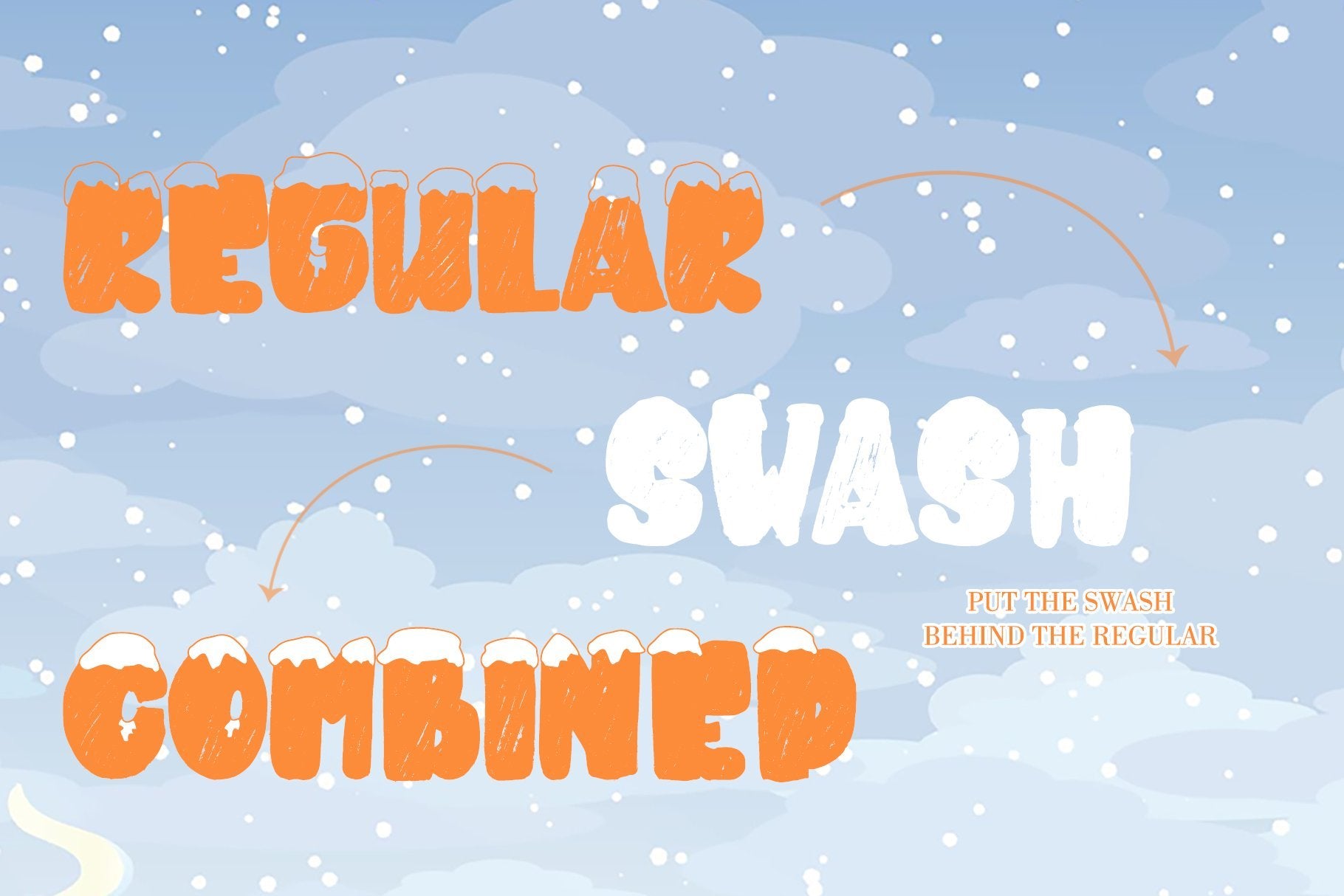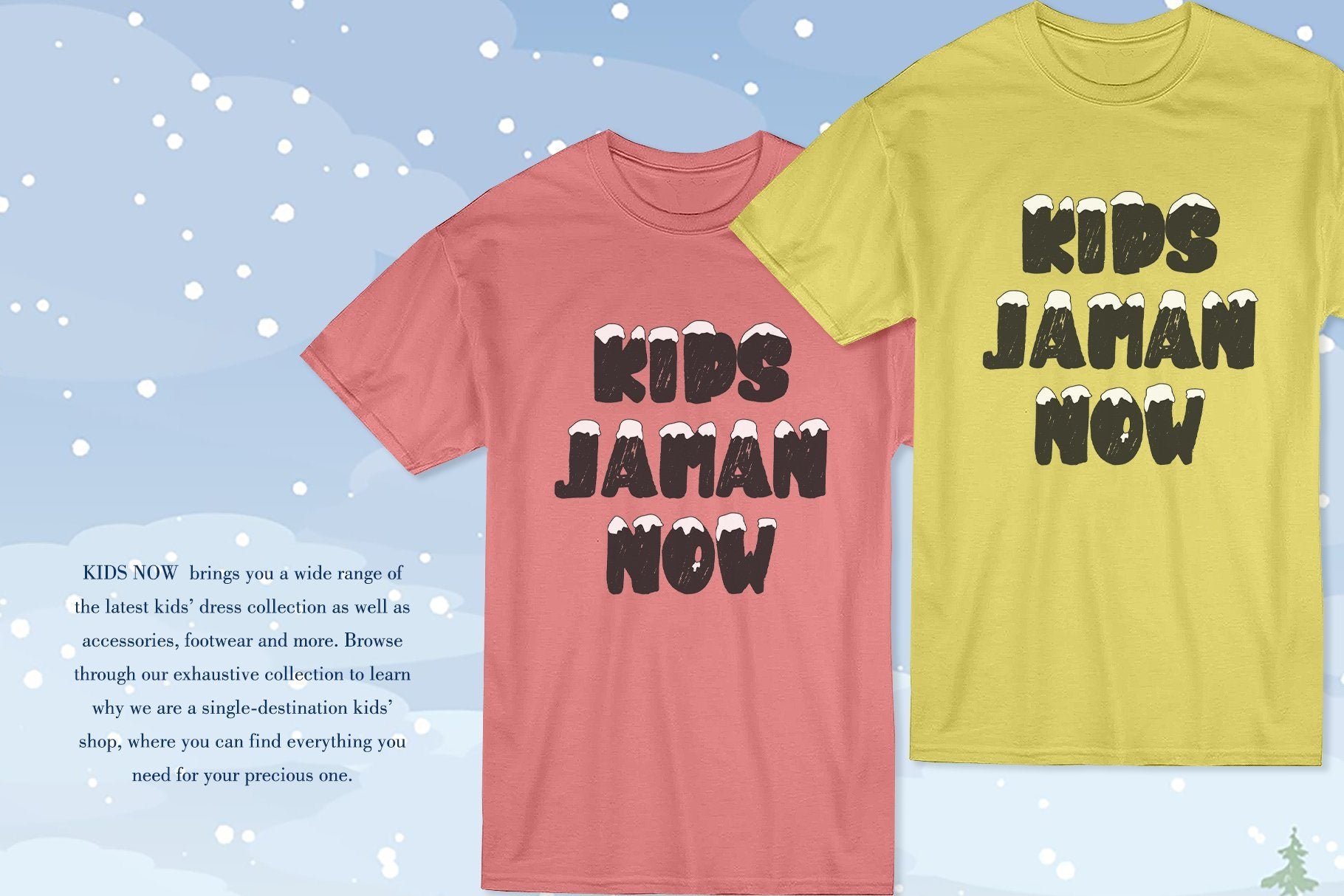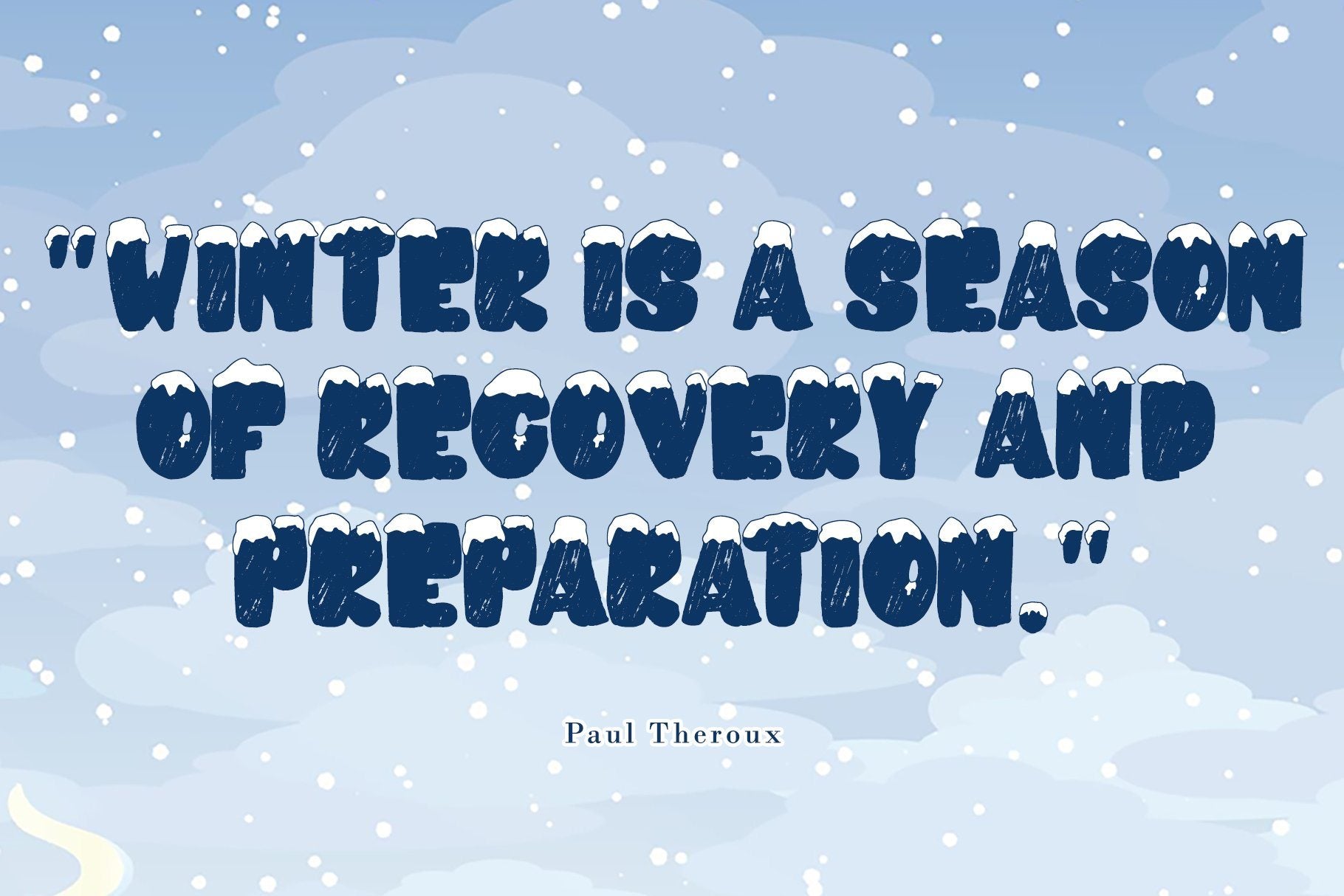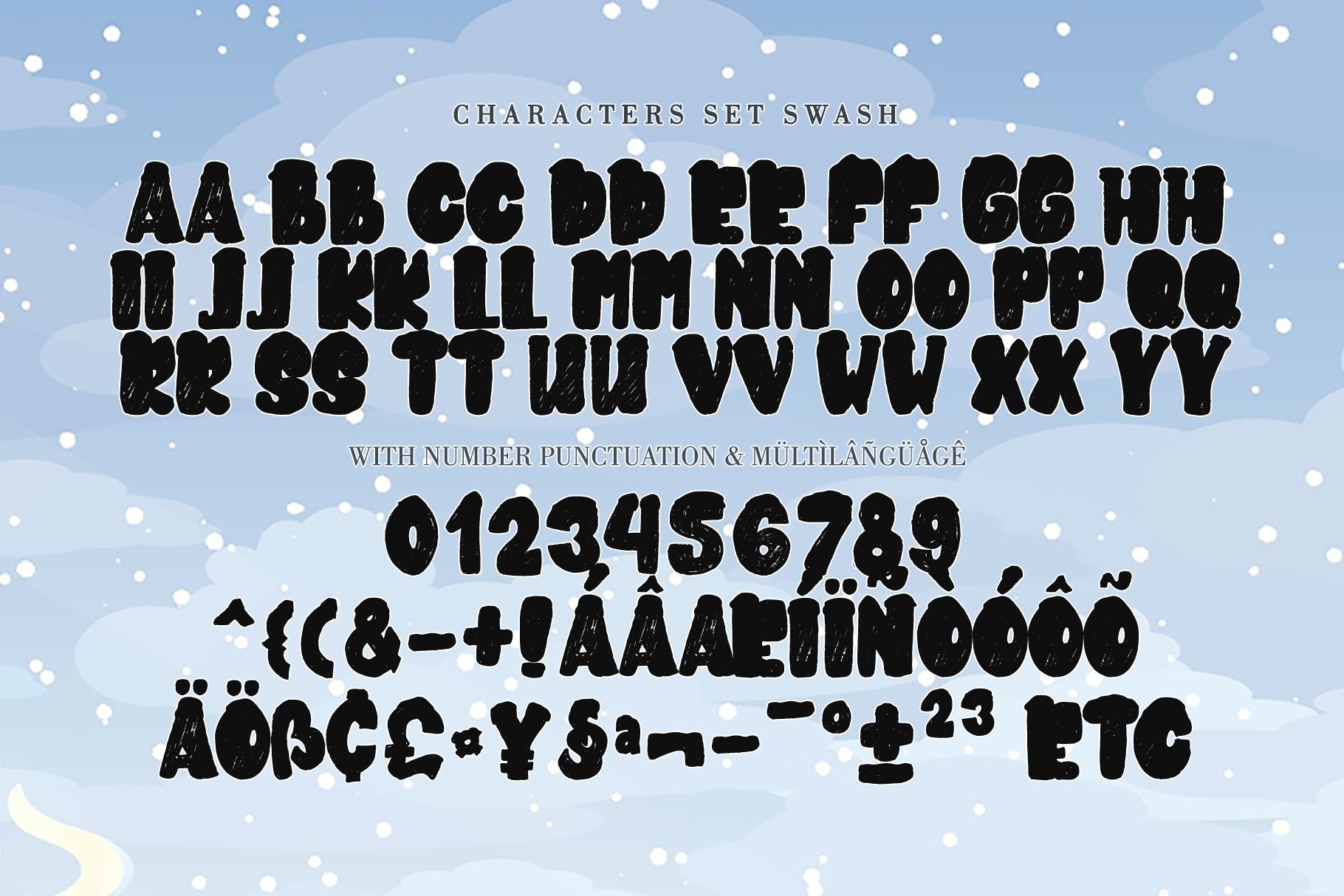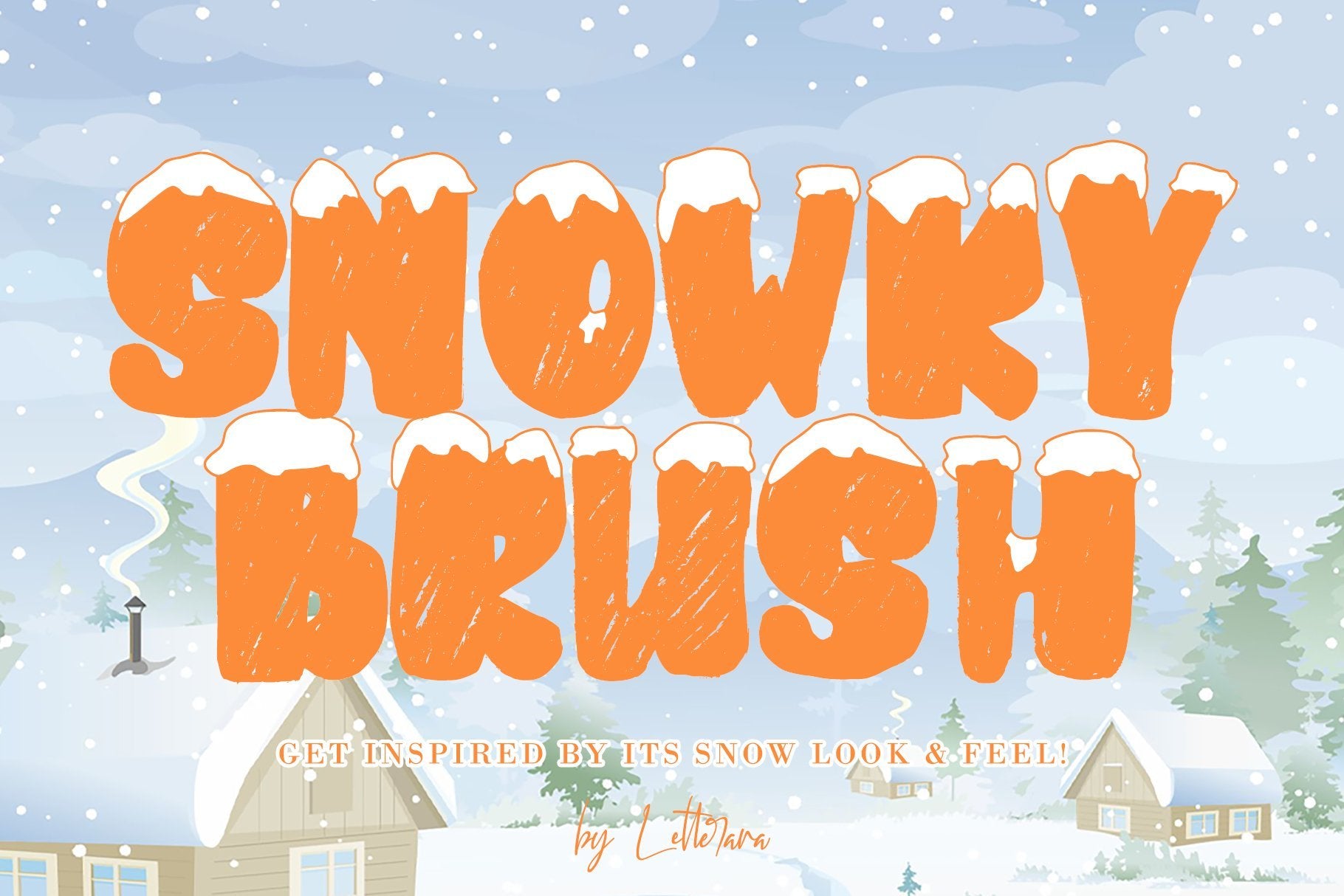
About SNOWKY BRUSH
SNOWKY BRUSH is a simple layered font inspired by the uniqueness of the snow. It includes 2 fonts. SNOWKY BRUSH is great in any branding, posters designs, and your upcoming winter stuff. Get inspired by its snow look & feel! Features : Upper Case Numerals Punctuations (OpenType Standard) Accents (Multilingual characters) Works on PC & Mac Simple installations Accessible in the Adobe Illustrator, Adobe Photoshop, Adobe InDesign, even works on Microsoft Word. don’t wait anymore, put it in your shopping basket 🙂 and follow me, because there will be many promos! Our other products : BEST SELLER BLACK PINK SIGNATURE ANDORA BRIGITTA HEANFFE EIFFEL IN LOVE ( FONT TRIO) BLACK PINK SUMMER HONG KONG ANGEL MALEFICENT California Street BESTOWENS FAMILY